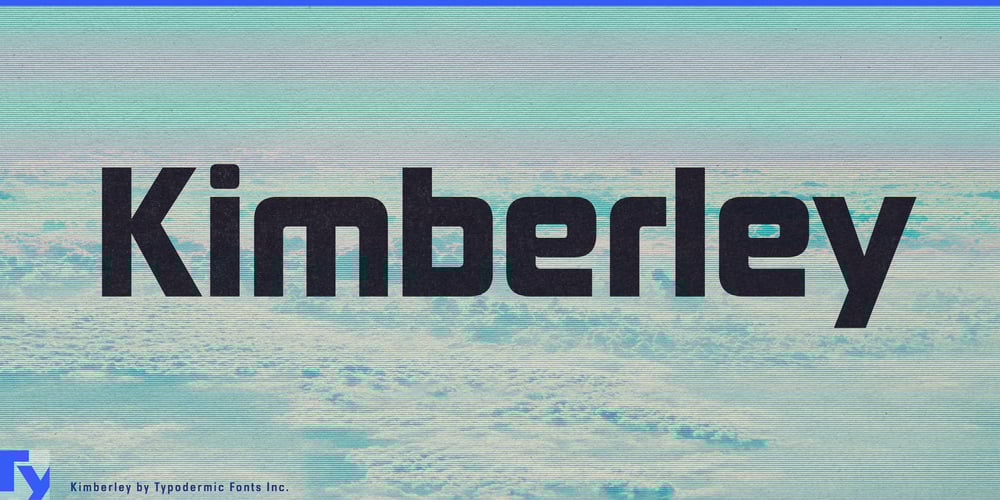
Kimberley Font Family was designed by Ray Larabie and published by Typodermic. Kimberley contains 14 styles and family package options. Kimberley: a sans-serif that speaks volumes. Inspired by the bold corporate industrial logos of the 1970s, this typeface marries squarish design with sleek angles to create a machine-made aesthetic that’s effortlessly cool and undeniably contemporary.With seven distinct weights and their italic counterparts, Kimberley offers unparalleled versatility. Whether you’re crafting a sleek corporate identity or designing eye-catching advertising campaigns, this typeface ensures your message stands out with clarity and distinction. Its modern edge and sophisticated style make it the perfect choice for designers who demand both form and function. Kimberley’s appeal extends far beyond its visual impact. This typeface is a linguistic powerhouse, supporting an extensive range of Latin-based European writing systems. From the fjords of Norway to the plains of Hungary, Kimberley speaks the language of your audience—literally. Its character set encompasses everything from Afrikaans to Zulu, ensuring your message resonates across borders and cultures. But Kimberley doesn’t stop at the familiar. It ventures into less charted typographic territories, offering support for languages like Hiligaynon, Karakalpak, and Vepsian. This expansive linguistic reach transforms Kimberley from a mere typeface into a global communication tool, bridging gaps and connecting communities through design.Ready to elevate your typography game? Kimberley awaits. Let its contemporary style and sophisticated edge become the cornerstone of your next design project. With Kimberley, you’re not just choosing a font—you’re making a statement.